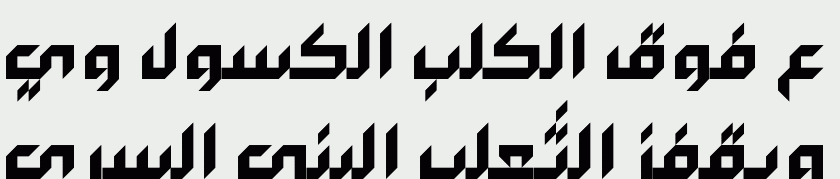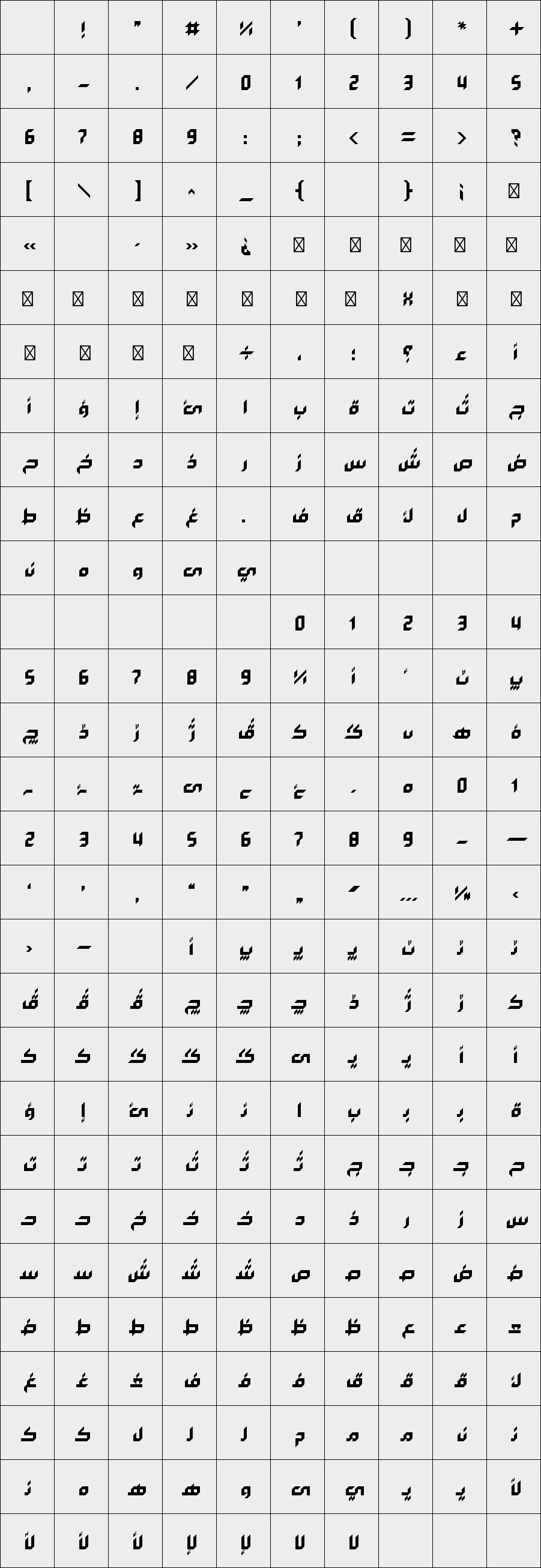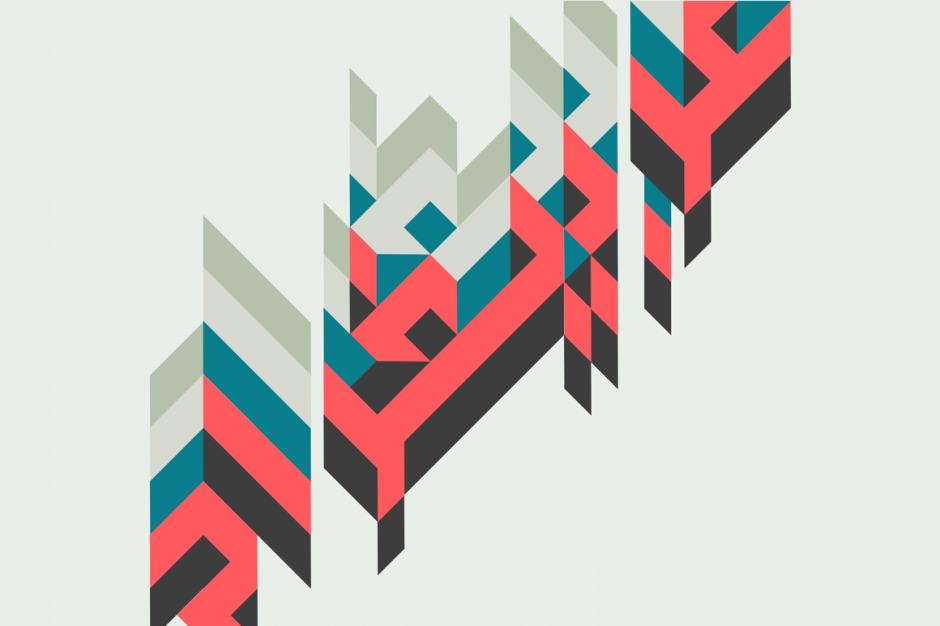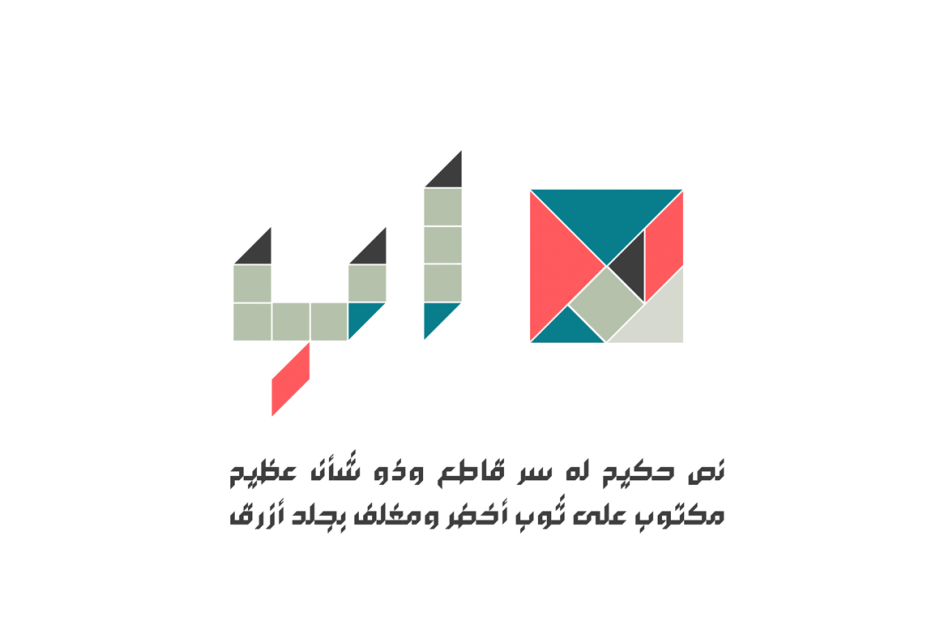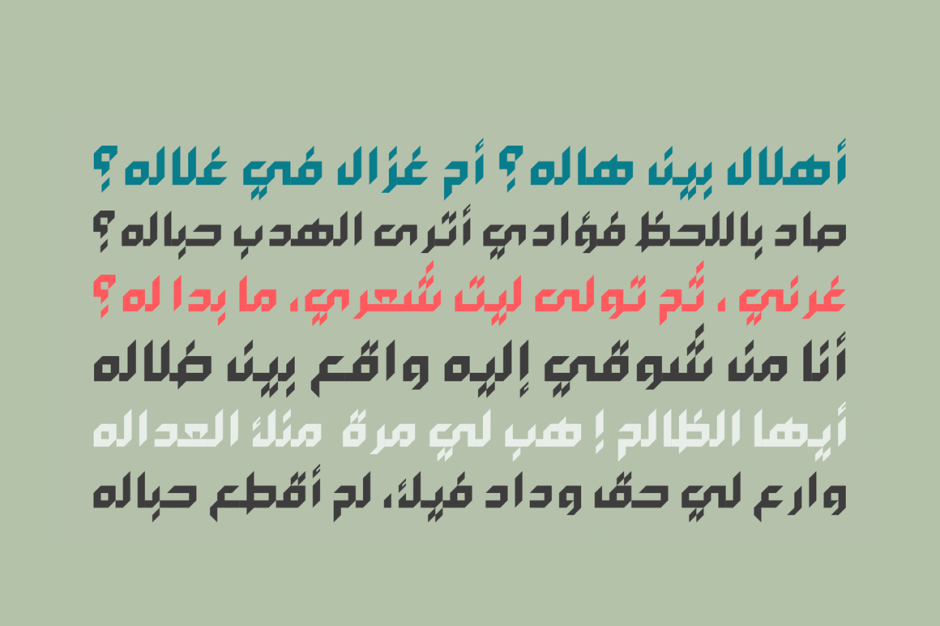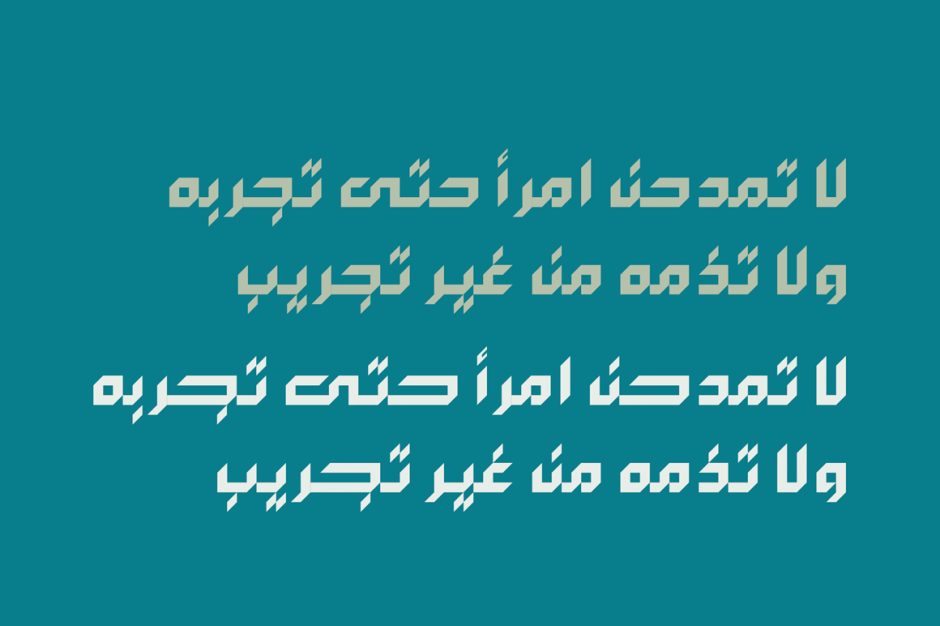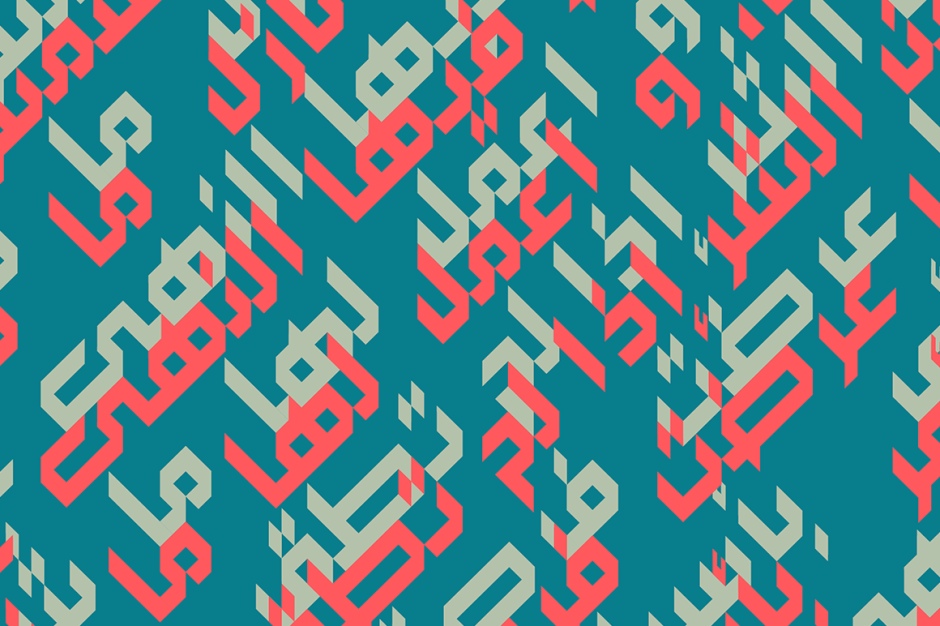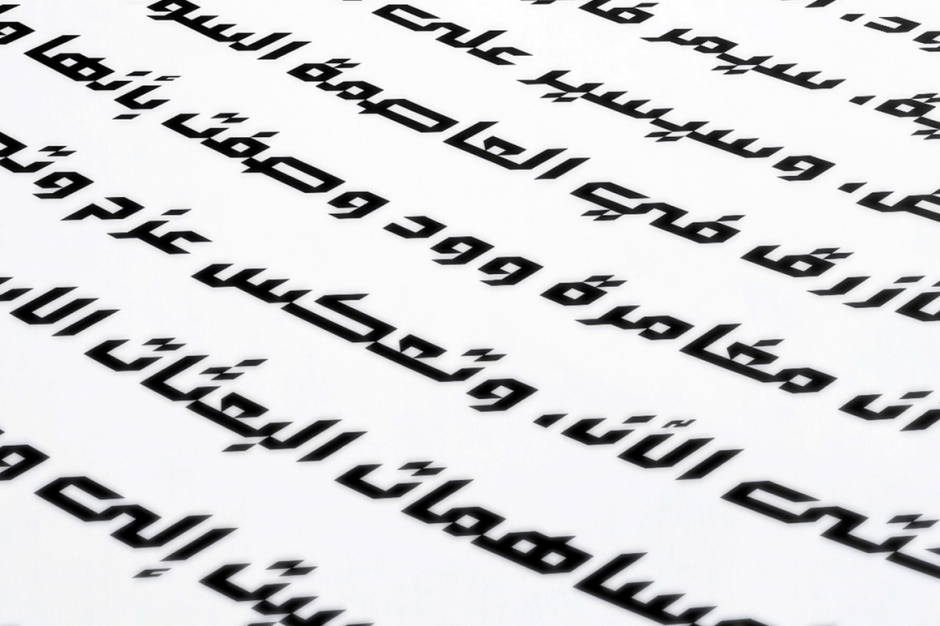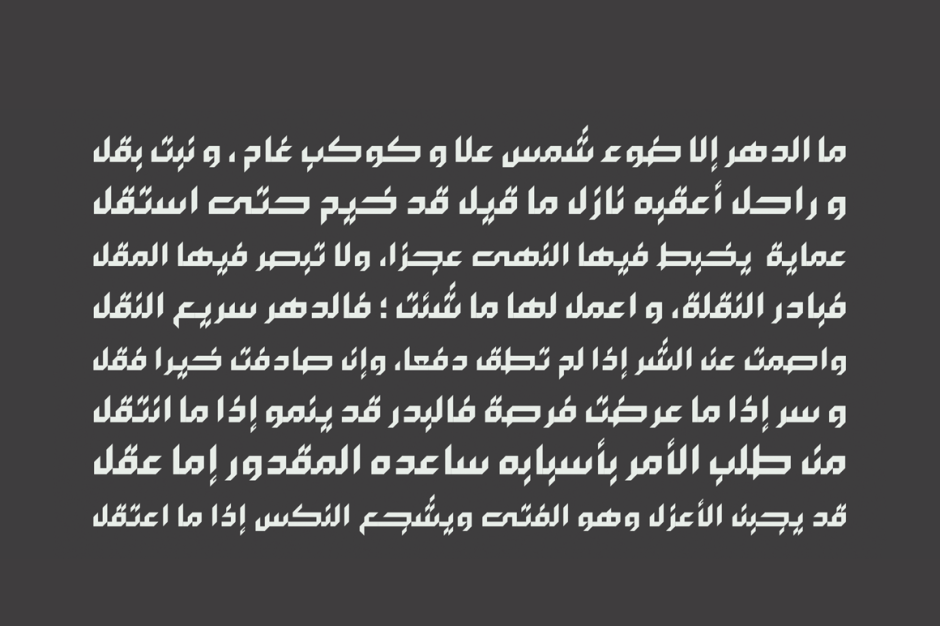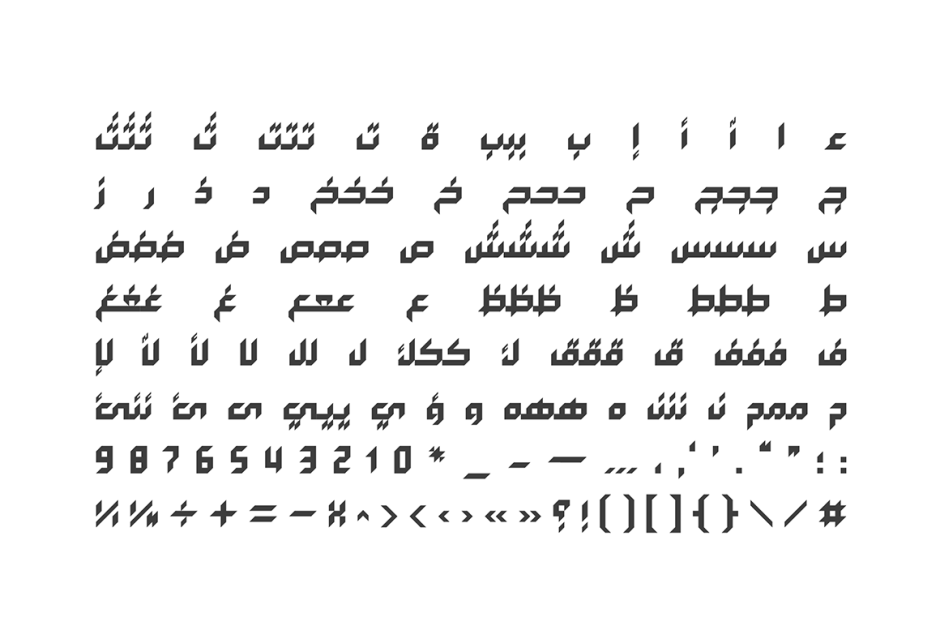
Arabigram
Arabigram is an Arabic display font that is inspired by the Chinese Tangram. Letters are uniquely designed by connecting triangles, squares and parallelogons while keeping the visual identity of Arabic script in mind. Arabigram suits various applications including web and print. It is appropriate for designs with geometrical compositions due to its grid-based structure.